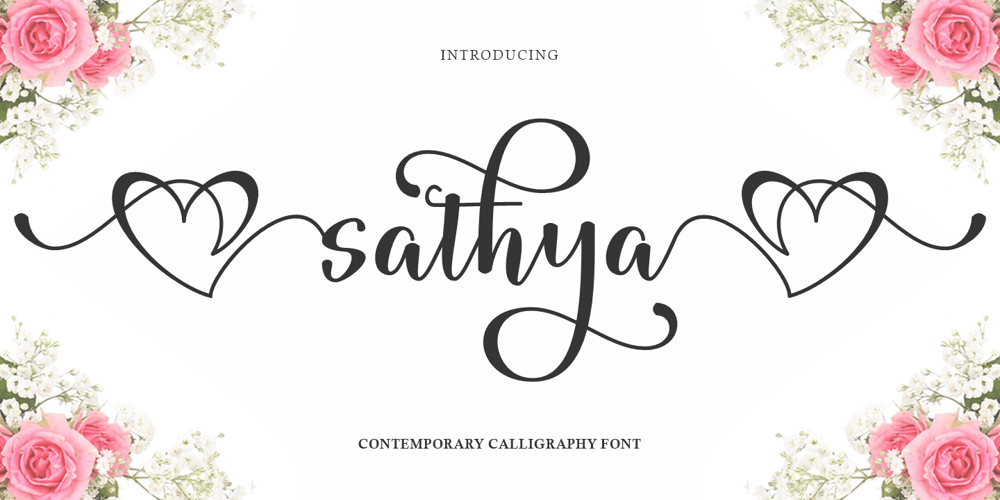
Sathya Script Font Family was designed by Afri Giani and published by Gian Studio. Sathya Script contains 1 styles and family package options. IntroduceSathya Script in beautiful handwritten style. Equipped with 600 glyphs. Sathya Script is perfect for branding projects, home appliance design, product packaging, use in business cards, invitation cards, etc. Just as a stylish text overlay onto a background image or anything else that needs a touch of elegance. Available in the Satya.To enable the OpenType Stylistic alternative, you need a program that supports OpenType features such as Adobe Illustrator CS, Adobe Indesign & CorelDraw X6-X7, Microsoft Word 2010 or a later version.There are additional ways to alternate/swash, using the Character Map (Windows), Nexus Font (Windows), Font Book (Mac) or a software program such as PopChar (for Windows and Mac).How to access all alternative characters, using Windows Character Map with Photoshop: https://www.youtube.com/watch?v=Go9vacoYmBwHow to access all alternative characters using Adobe Illustrator:http://youtu.be/iptSFA7feQ0How to use the font style set in Microsoft Word 2010 or later versions:https://youtu.be/x1A_ilsBsGsThanks for checking! I really hope you enjoy it.RegardsDesigners: Afri GianiPublisher: Gian Studio